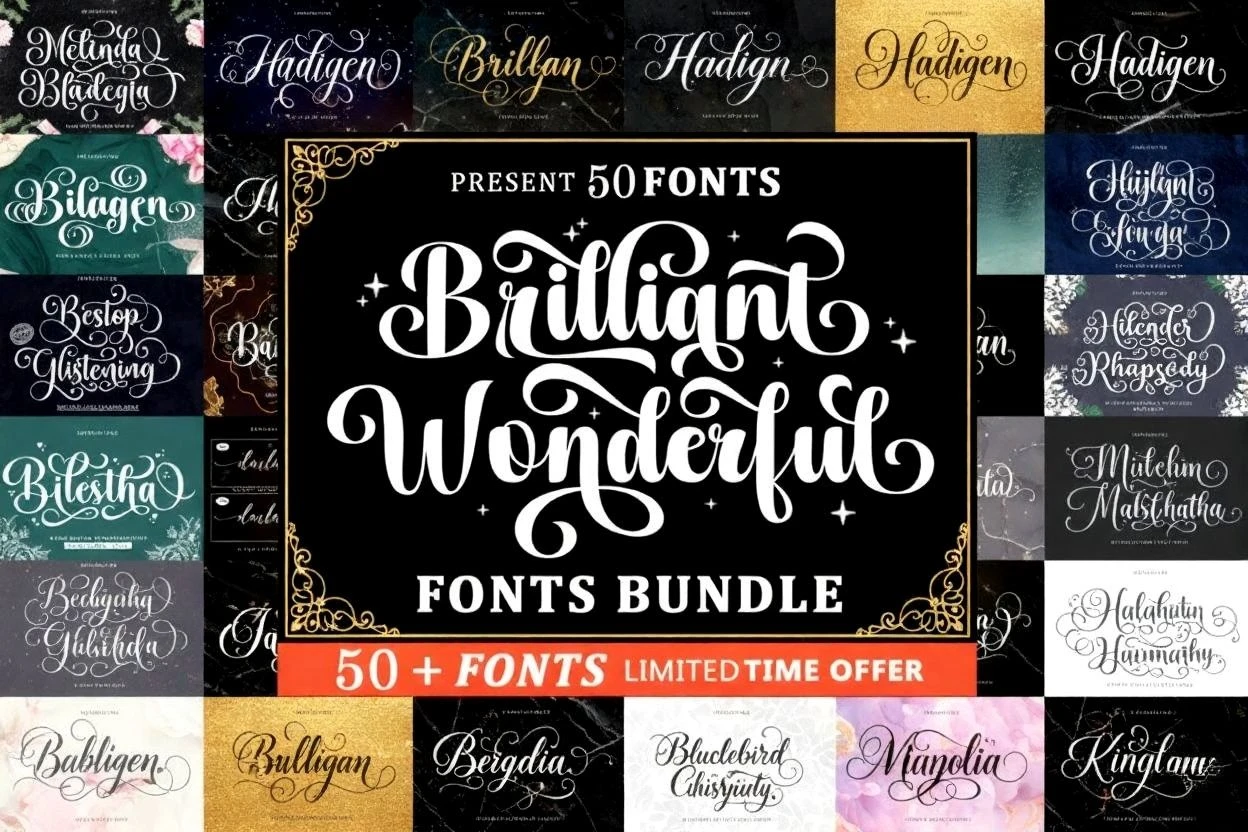
Brilliant Wonderful Font Bundle – 50 Elegant Calligraphy Fonts
The Brilliant Wonderful Font Bundle brings together 50 elegant calligraphy and handwritten fonts in one collection, and after going through the set, it feels especially useful for branding projects, Cricut crafts, wedding stationery, and feminine packaging designs. A lot of bundles tend to repeat the same script style over and over, but this one actually mixes clean signature fonts, flowing calligraphy, and softer handwritten styles that don’t all feel identical.
One thing that stood out right away is how detailed the character sets are. Many of the fonts include extra swashes, alternates, and ligatures that make text look less rigid and more naturally handwritten. That matters more than people think, especially when designing logos or social graphics where repetitive lettering becomes noticeable fast.